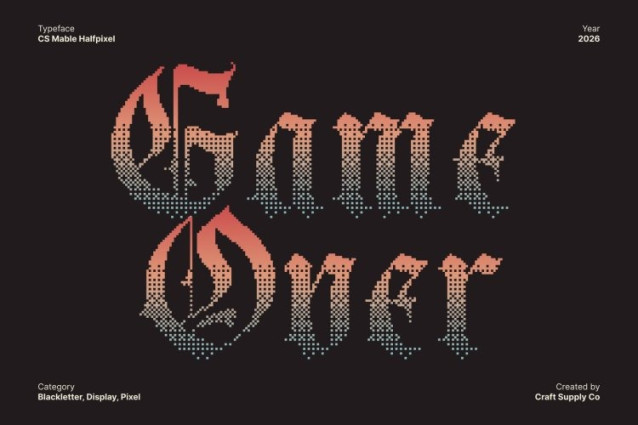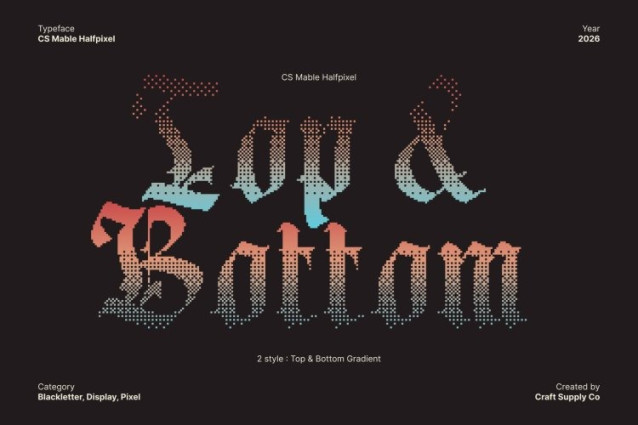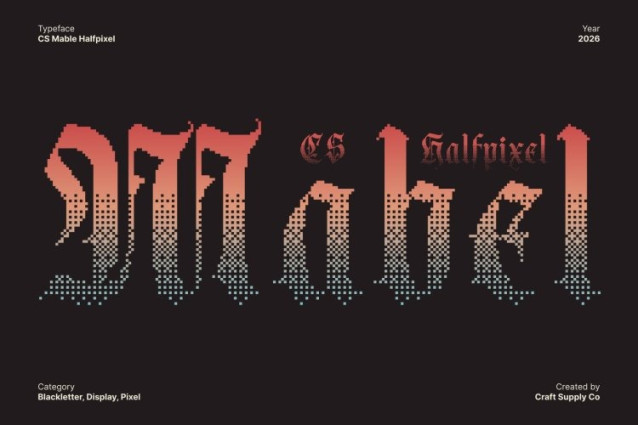
CS Mabel Halfpixel Font
CS Mabel Halfpixel Font – This is a classic blackletter display font that draws inspiration from the intricate beauty of ancient manuscripts. It features sharp strokes, pointed angles, and elaborate decorative details that create a bold and authoritative presence. Each letter is carefully crafted to capture the richness of traditional typography while introducing a subtle modern refinement.
Rich Historical Ambiance with a Digital Edge
Evoking the grandeur of the medieval and Renaissance eras, This is ideal for projects that require a formal and historical atmosphere. Its dramatic and distinctive style resonates with themes of heritage, tradition, and artistry. The fusion of classic blackletter structure with a halfpixel finish adds a contemporary digital nuance.
Halfpixel Texture for Smooth Retro Character
The halfpixel style gives the font a smoother appearance than traditional pixel fonts while preserving a retro digital aesthetic. Using subtle anti-aliasing effects, the edges of each letter gain a gentle softness that enhances readability and visual appeal. This combination of historical form and digital texture makes the font feel both classic and modern.
Versatile for Formal and Creative Applications
Perfect for formal invitations, historical posters, branding, album covers, packaging, and editorial layouts, transforms text into a striking focal point. Its intricate details and bold structure bring elegance, authority, and personality to any design that seeks to balance heritage with a modern digital twist.